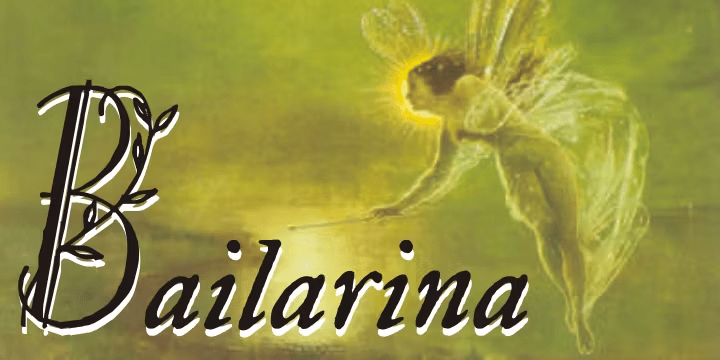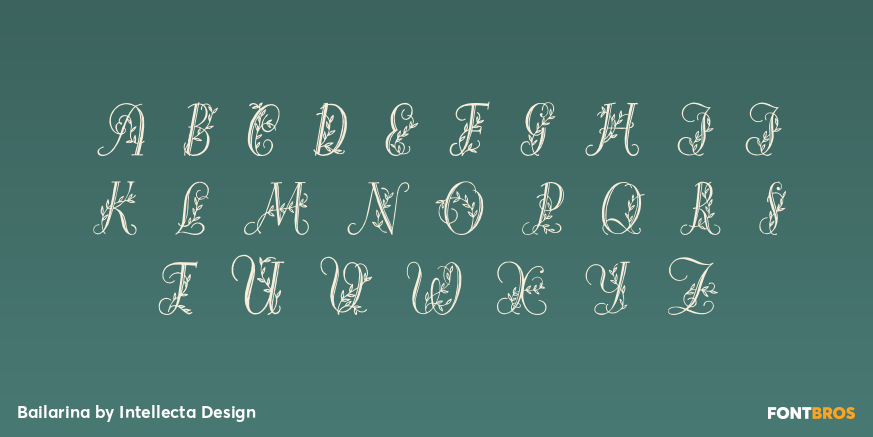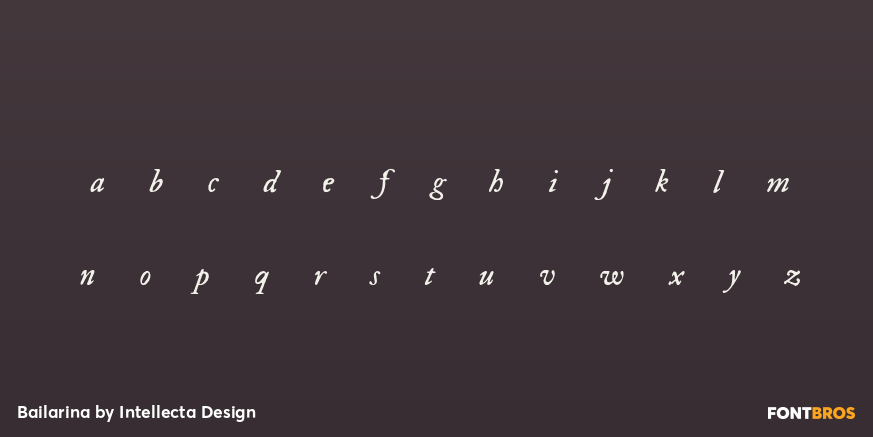
Bailarina
Font Family by Intellecta Design
Bailarina is a decorative serif display font with a soft, feminine feel and a distinctly historical character. Its renaissance-inspired styling gives headlines and short phrases an elegant, theatrical presence that feels both ornamental and readable.
With its graceful personality, this single-style design is well suited to titles, headings, book covers, and other display work where you want a refined vintage note. It can also bring a romantic, old-world touch to branding, packaging, or editorial layouts that call for something expressive rather than ordinary.
Created by Intellecta Design, Bailarina is a focused choice for designers looking for a serif with charm, softness, and period-inspired flair.